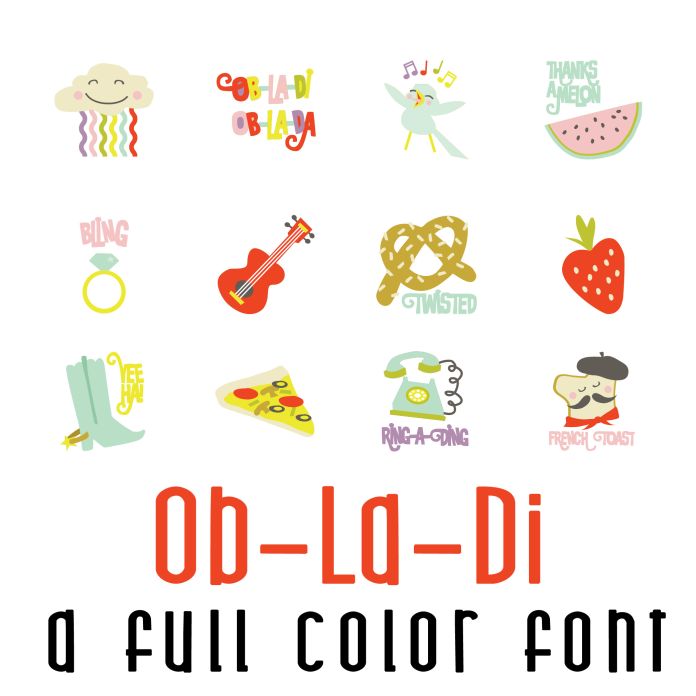
Ob-La-Di Full Color Font is a playful and vibrant font design that features 26 colorful and cheerful elements with whimsical typography. This font is perfect for adding a fun and lively touch to words and phrases in various design projects, such as invitations, posters, and social media graphics. Its unique style and bold colors make it stand out and grab attention effortlessly.